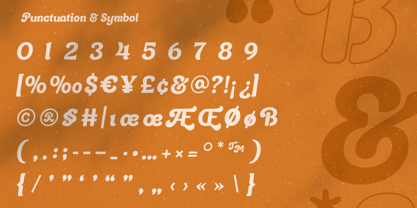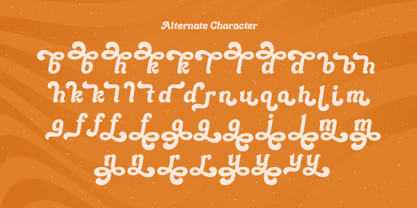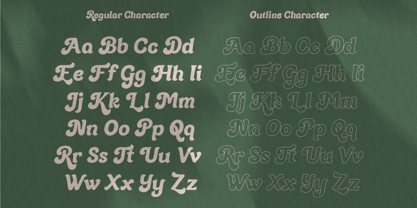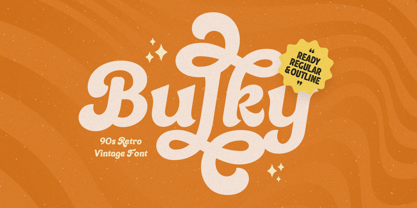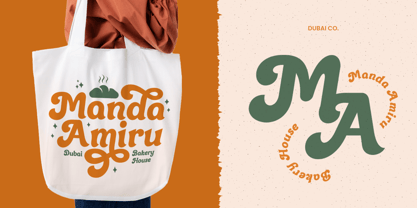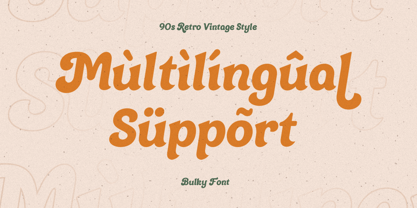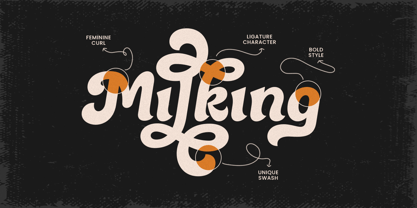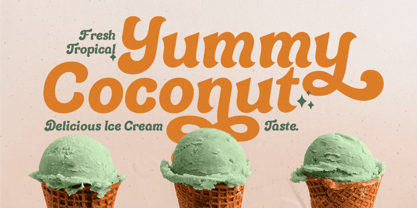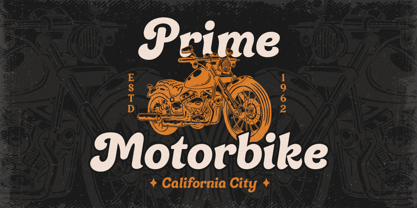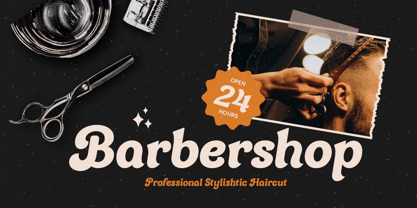
Bulky
Bulky - Retro Vintage Font
Bulky is a retro vintage font that embodies boldness and nostalgia, perfect for projects that need a touch of classic charm with a strong, distinctive presence. With its robust and attention-grabbing design, Bulky is ideal for posters, logos, branding, and packaging that aim to evoke a sense of timeless style.
Inspired by retro signage and classic advertisements, Bulky combines vintage aesthetics with modern usability. Its thick strokes and unique character shapes make it stand out in any composition, bringing a bold and memorable element to your designs. Whether used in digital or print, Bulky's vintage flair adds a special touch that captures the essence of past eras.
Bulky is designed to resonate with audiences seeking a mix of nostalgia and modern impact, making it an essential tool for any designer’s toolkit. Elevate your creative projects with a font that speaks volumes and stands the test of time.
Bulky Retro Vintage Font Features:
• Unique Retro and Vintage Character Designs
• Punctuation, Number, and Symbol
• Uppercase and Lowercase
• Opentype Features
Multilingual Characters available for:
Afrikaans, Albanian, Asu, Basque, Bemba, Bena, Breton, Chiga, Cornish, Dutch, English, Estonian, Filipino, Finnish, Friulian, Galician, German, Gusii, Indonesian, Irish, Italian, Kabuverdianu, Kalenjin, Kinyarwanda, Luo, Luxembourgish, Luyia, Machame, Makhuwa-Meetto, Makonde, Malagasy, Manx, Morisyen, North Ndebele, Nyankole, Oromo, Portuguese, Quechua, Romansh, Rombo, Rundi, Rwa, Samburu, Sango, Sangu, Scottish Gaelic, Sena, Shambala, Shona, Soga, Somali, Spanish, Swahili, Swedish, Swiss.